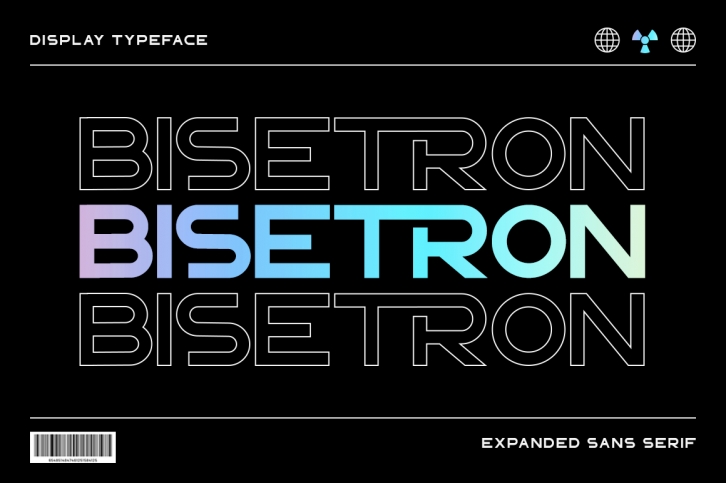
Bisetron is a cool, bold and robotic display font. It can easily be matched to an incredibly large set of projects, so add it to your creative ideas and notice how it makes them stand out!